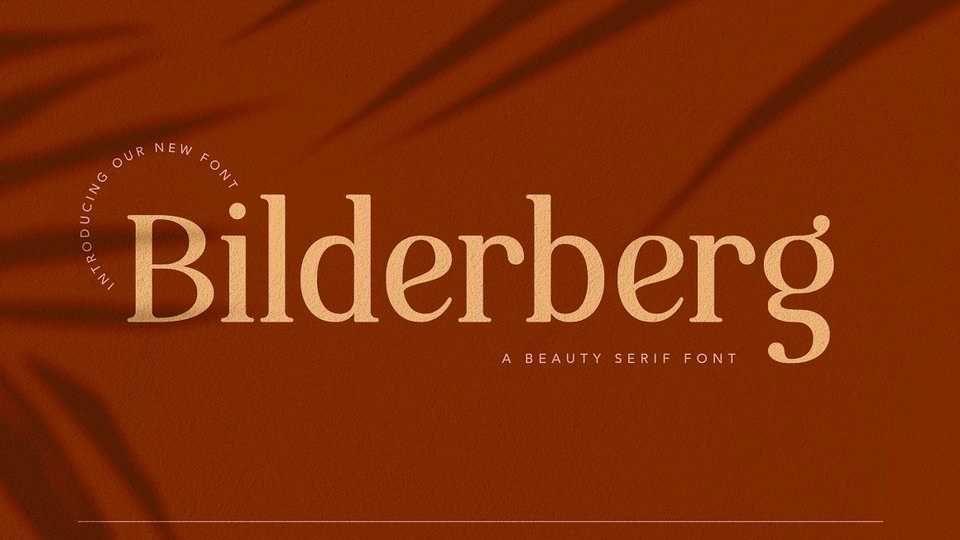
Download Bilderberg font, a beauty minimalist elegant and modern vintage typeface. Bilderberg is perfect for branding projects, logo, wedding, fashion, boutique, furniture, and any projects, it makes with a high level of legibility.
Designer: Peterdraw